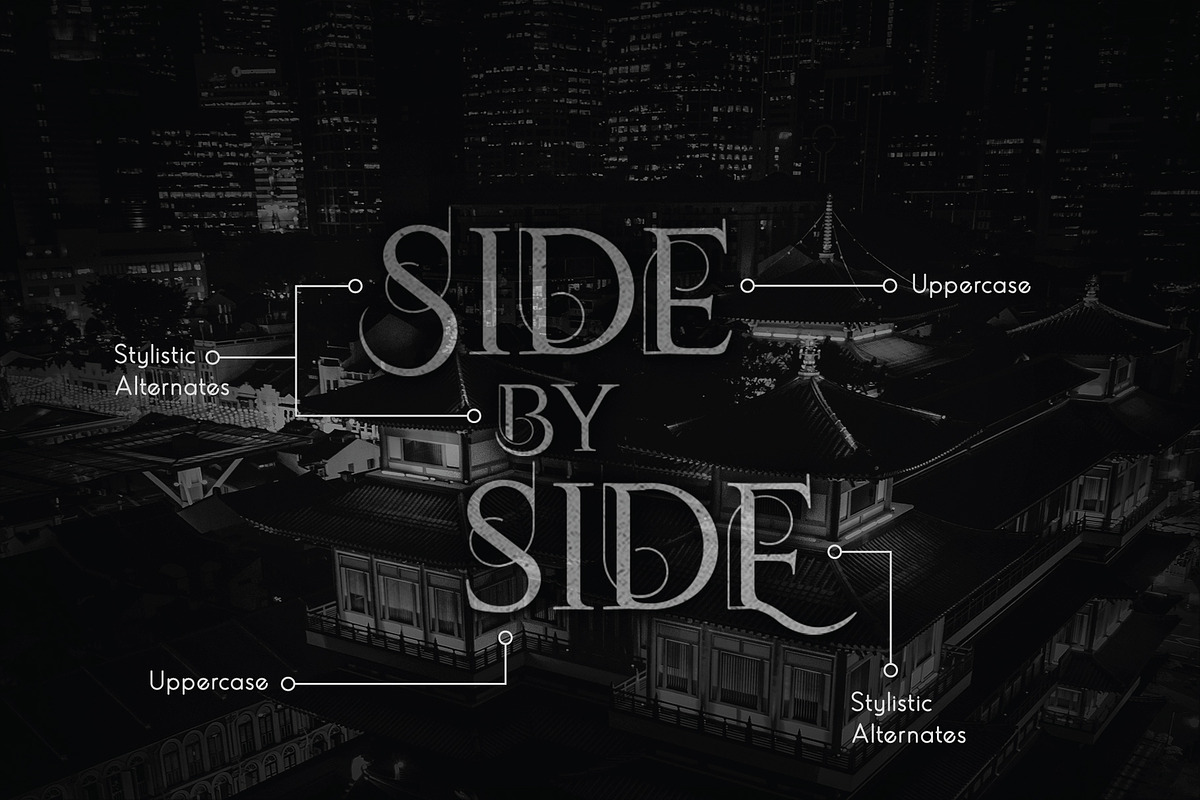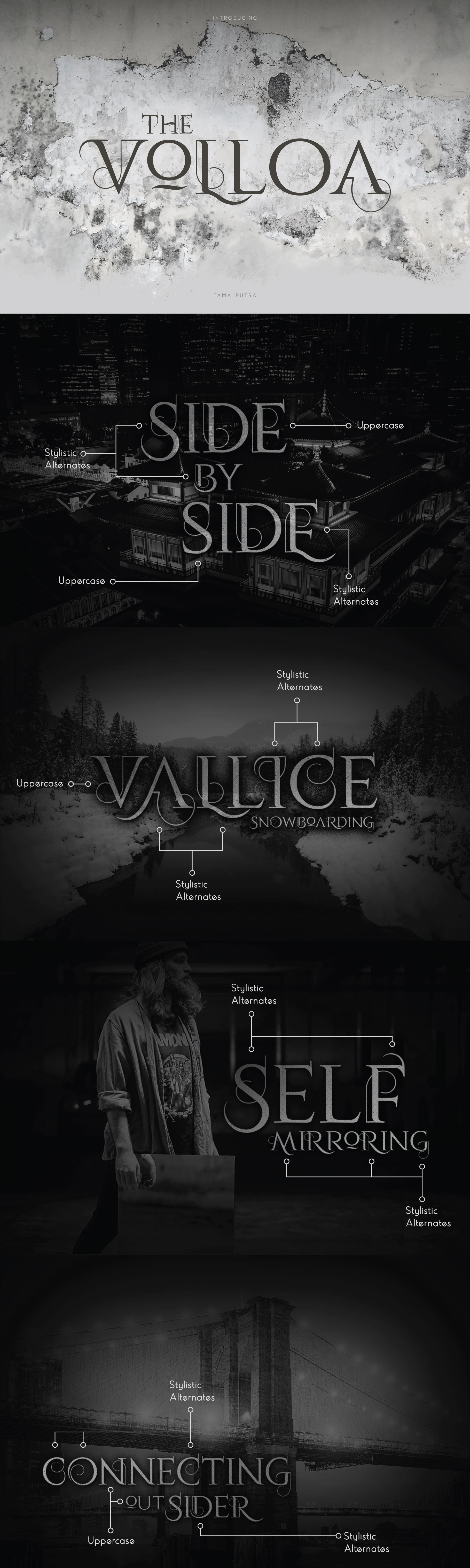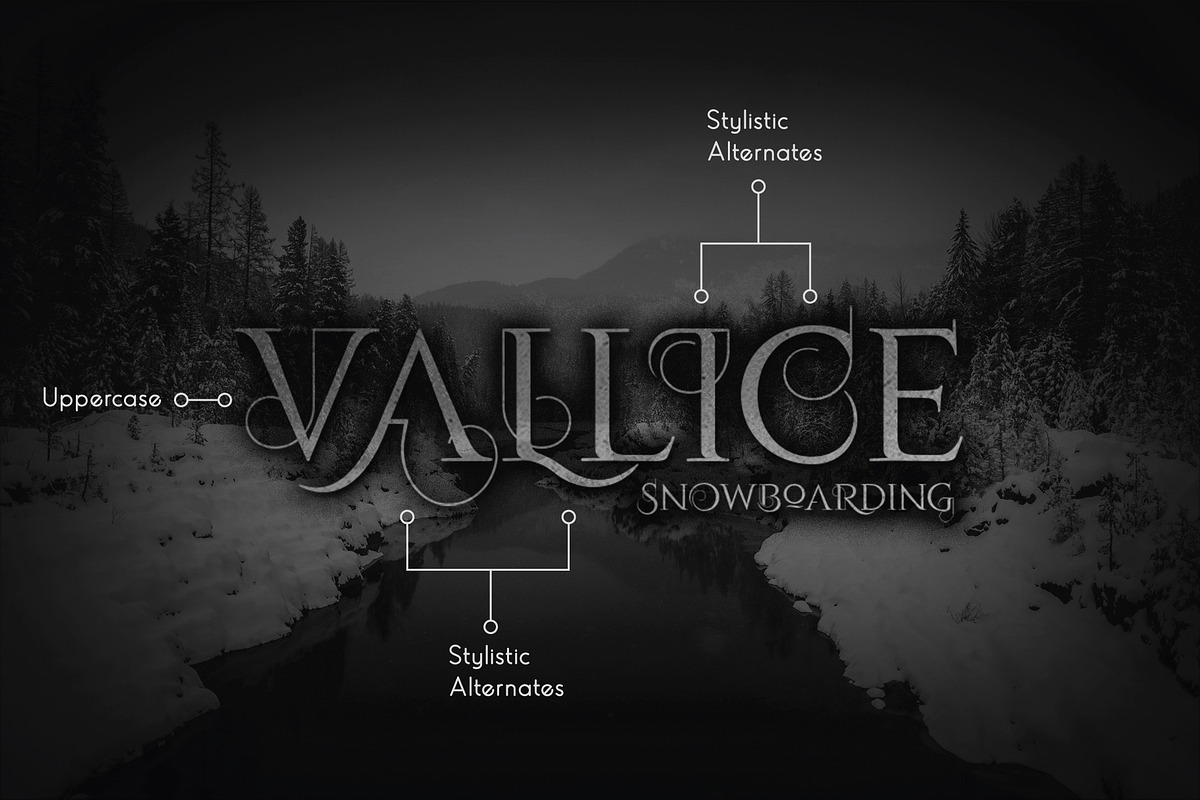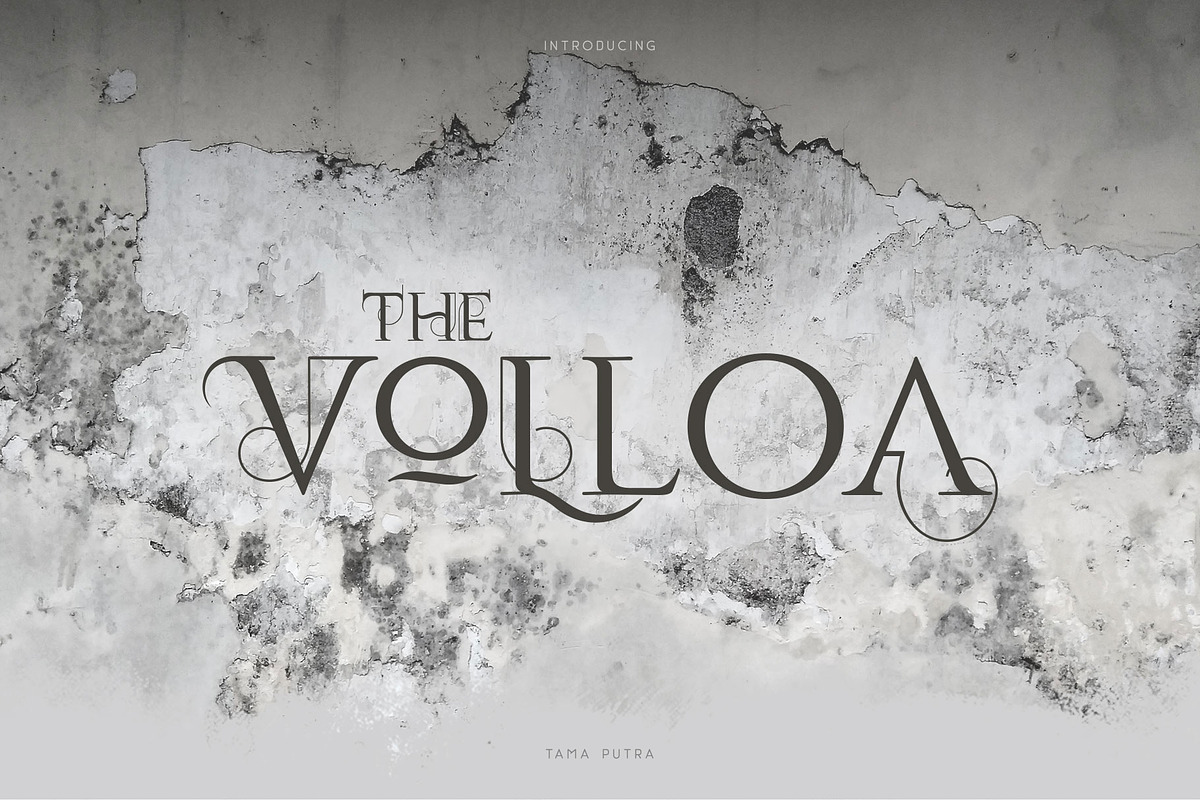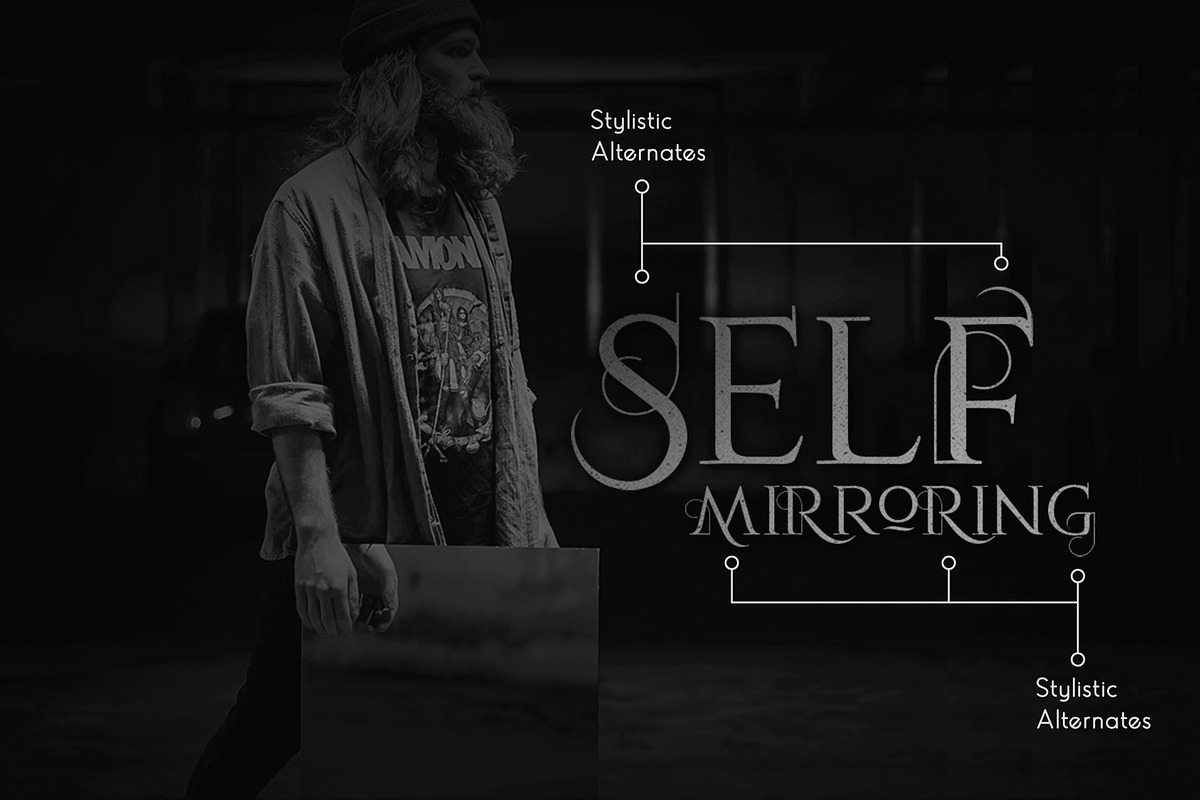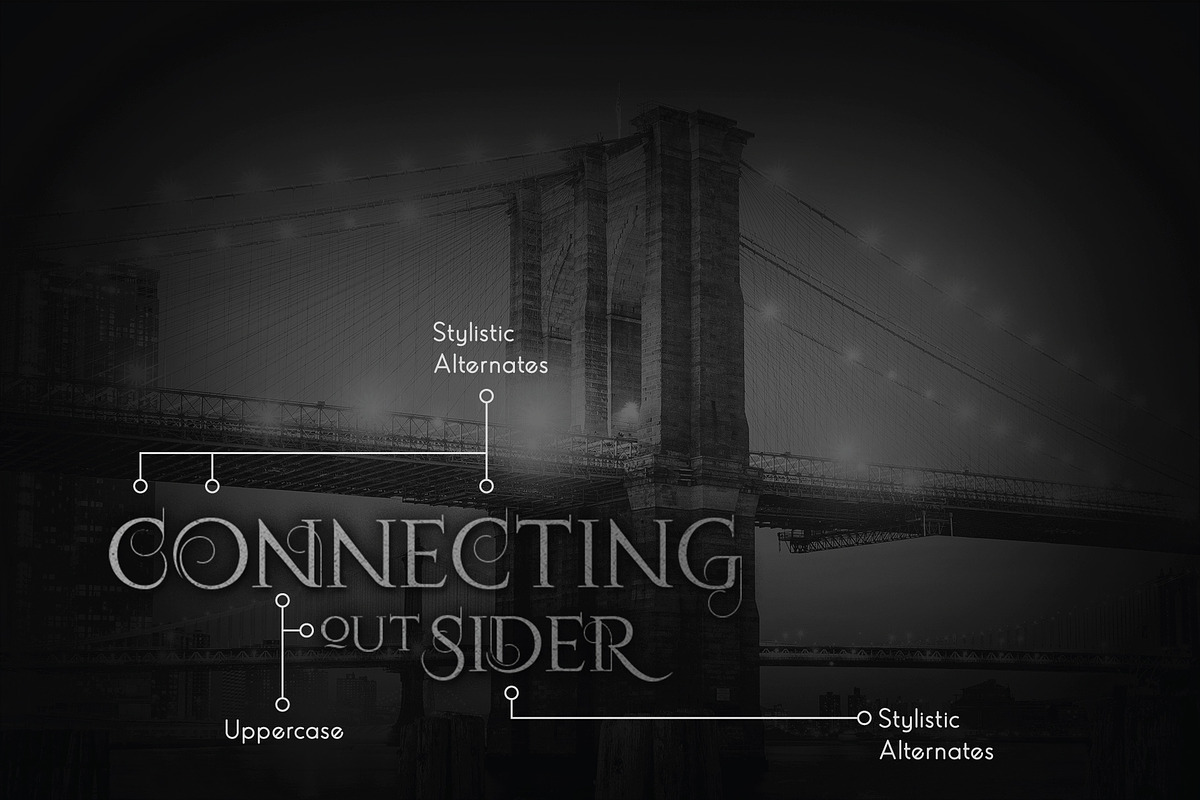
Volloa Decorative Typeface
Volloa Typeface
Volloa is a display decorative serif typeface. It includes multi-lingual and currency support, numerals, and punctuation.
- Character Set A-Z (Uppercase & Stylistic uppercase)
This typeface can be put to many uses:
- Poster
- Banner Design
- T-shirt
- Another end products
Volloa typeface is suitable font for creating beautiful things and many creative work.